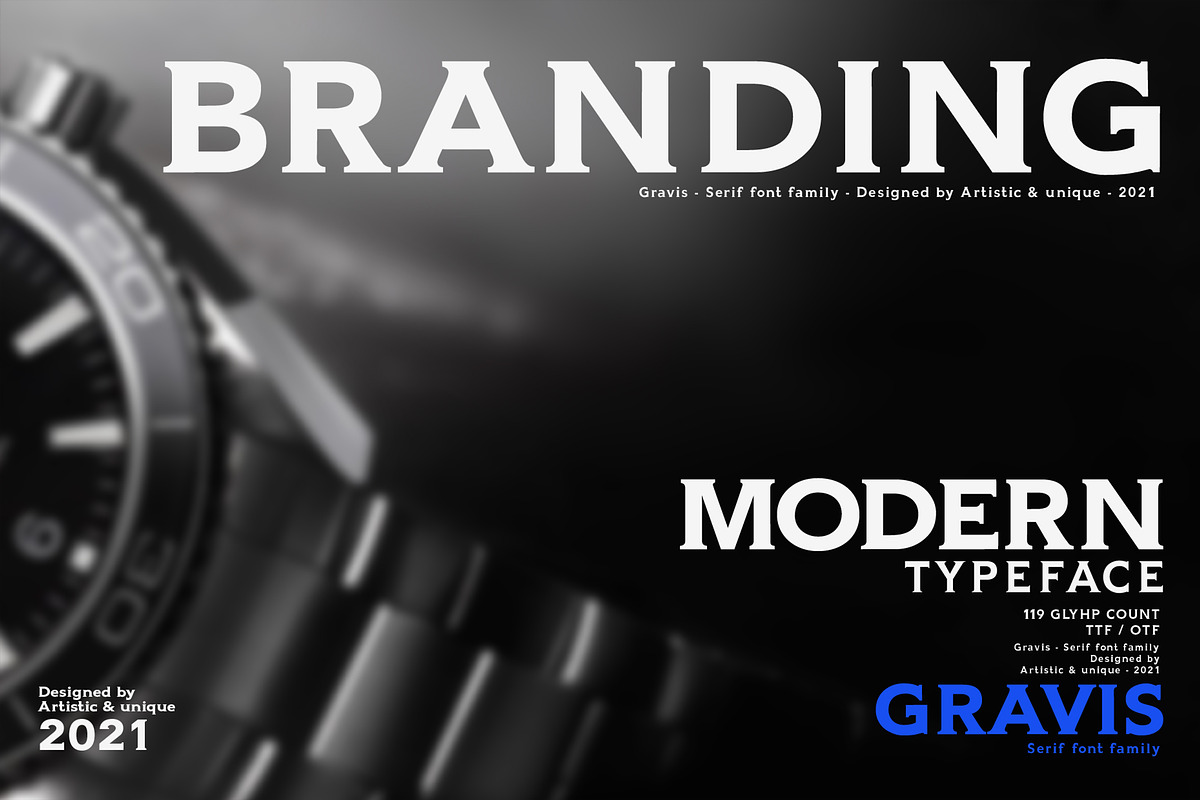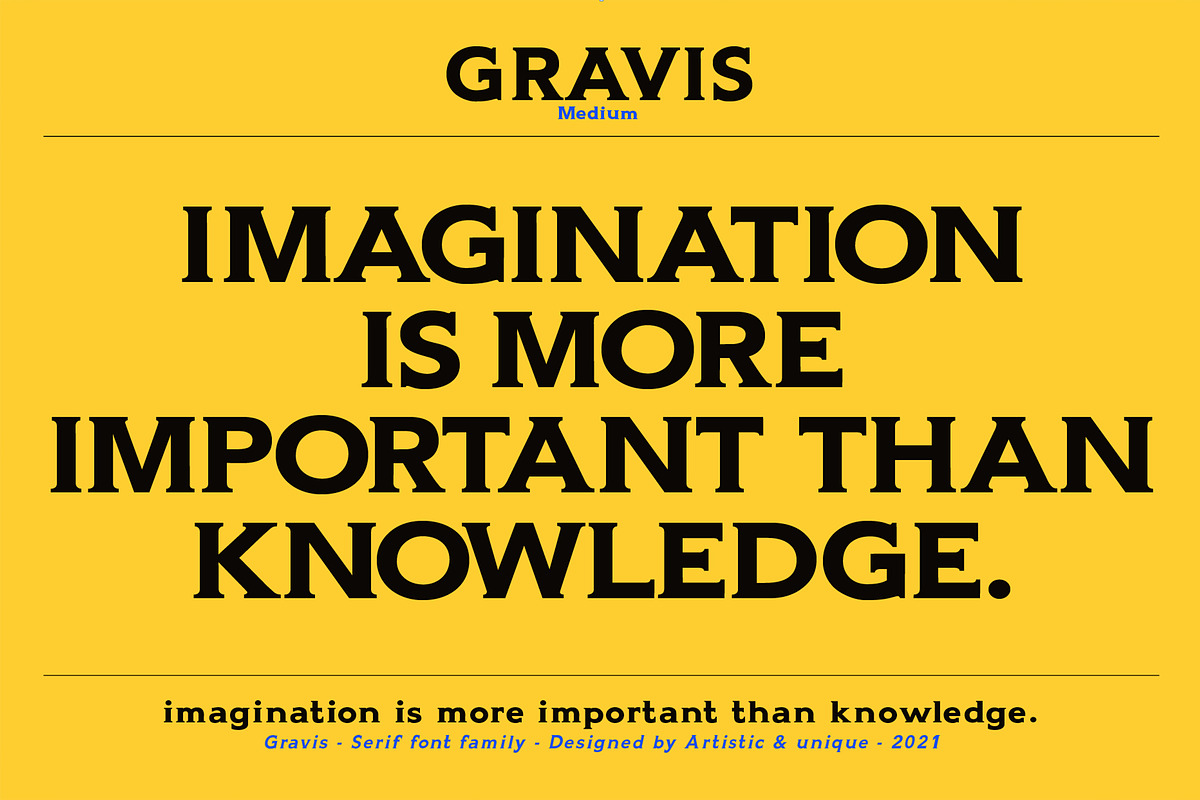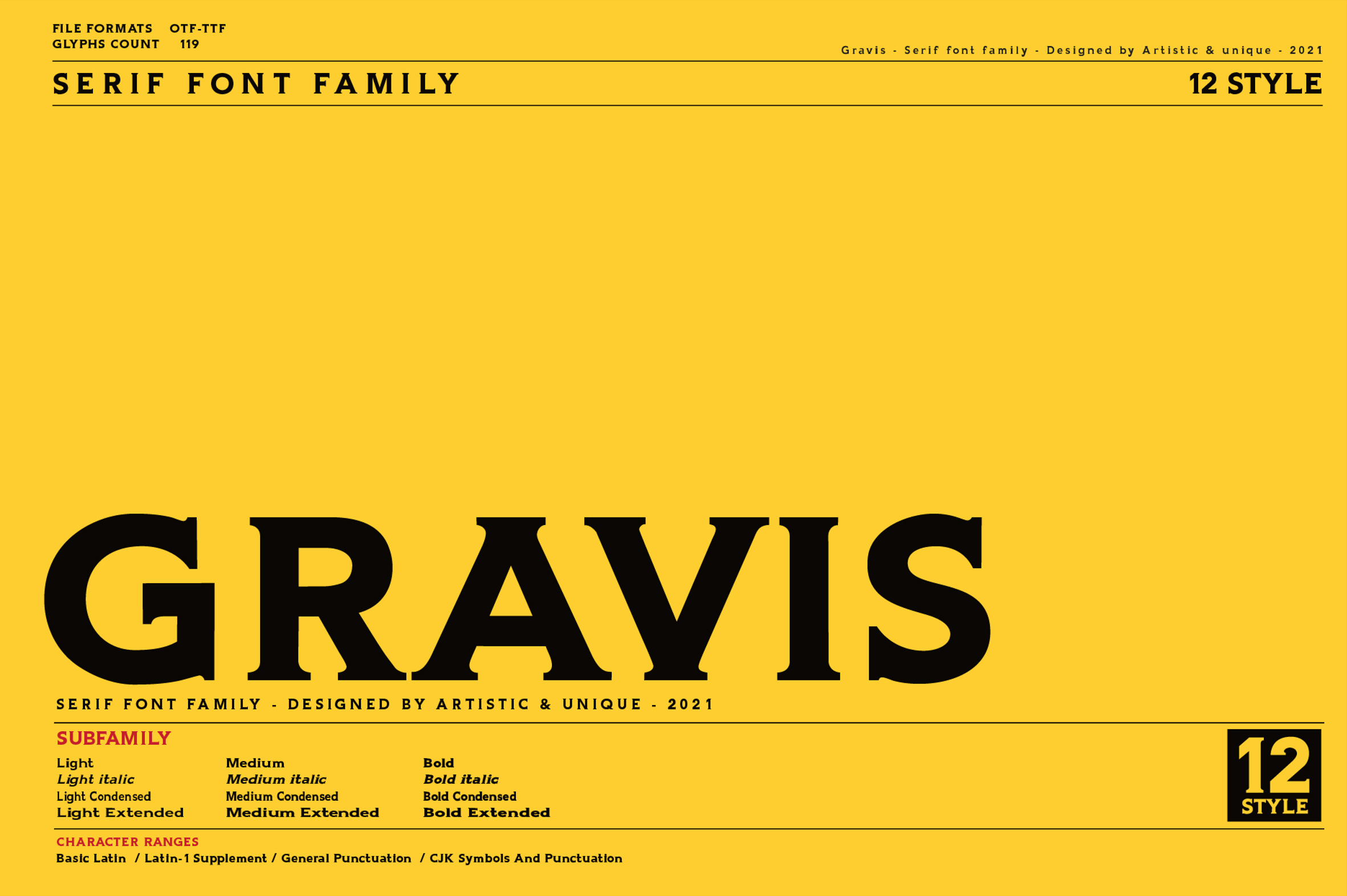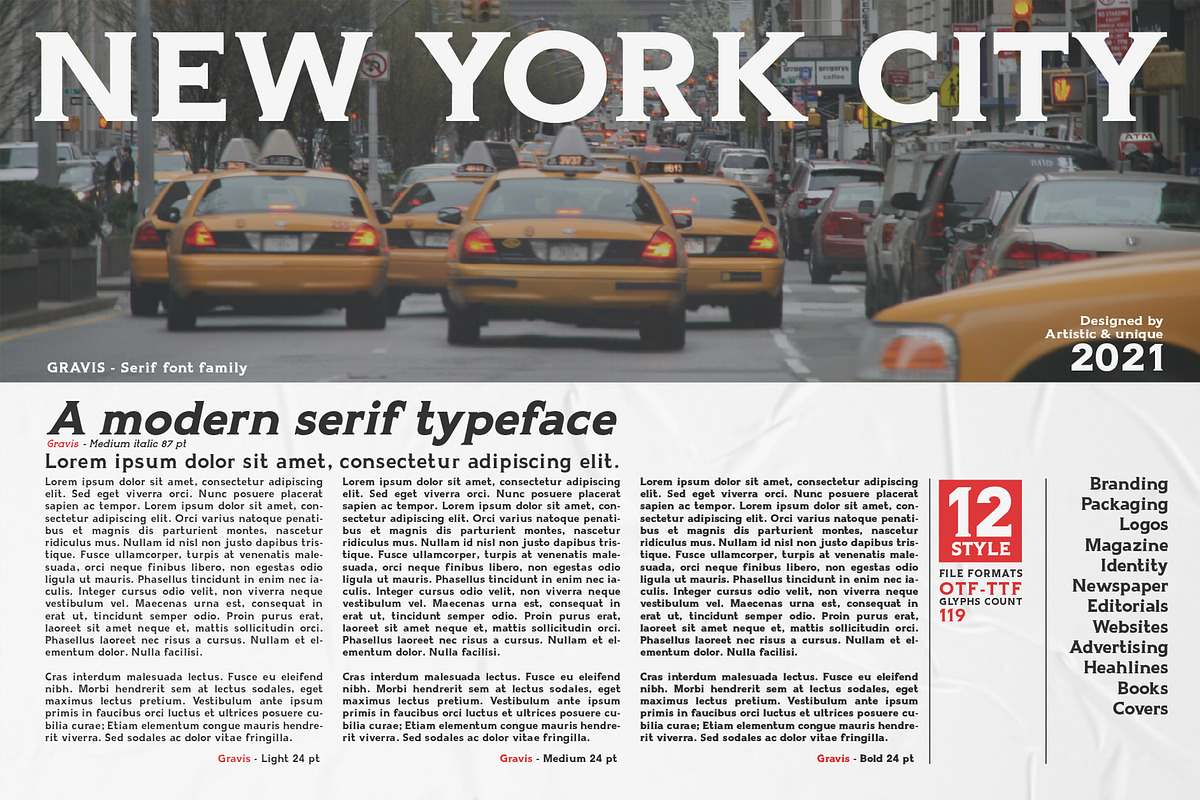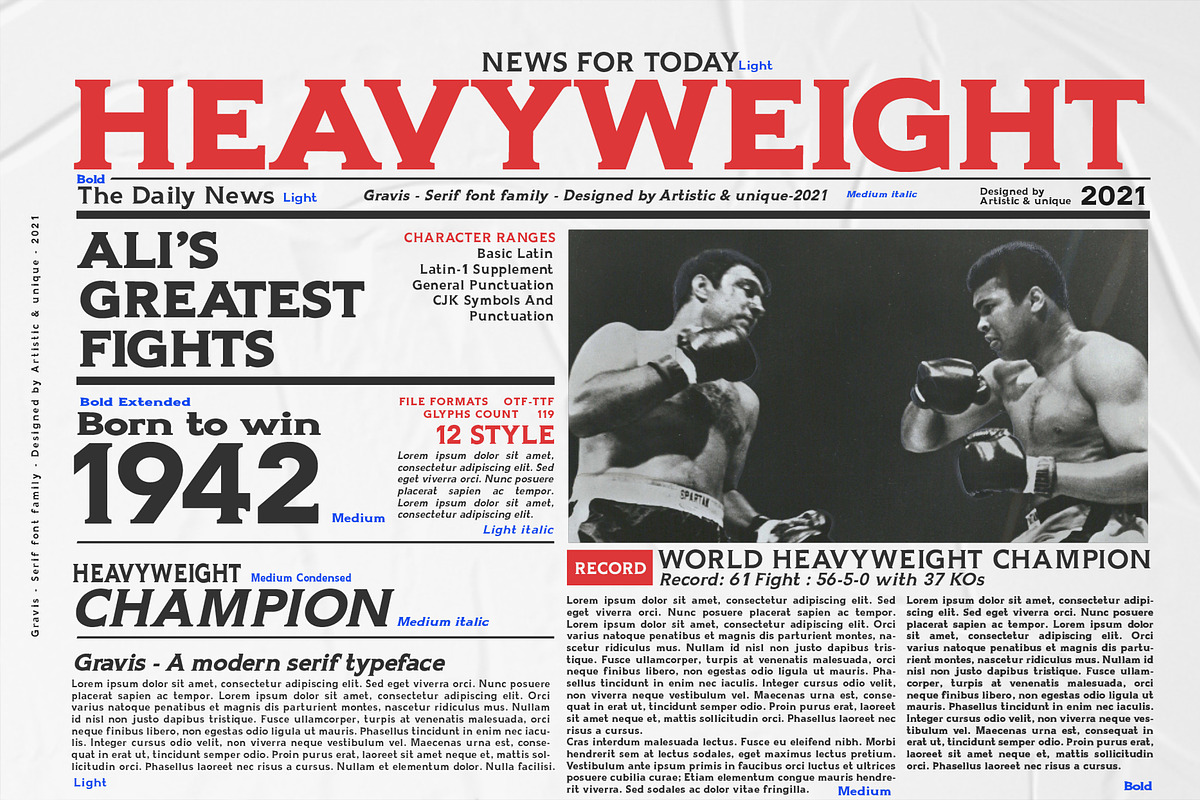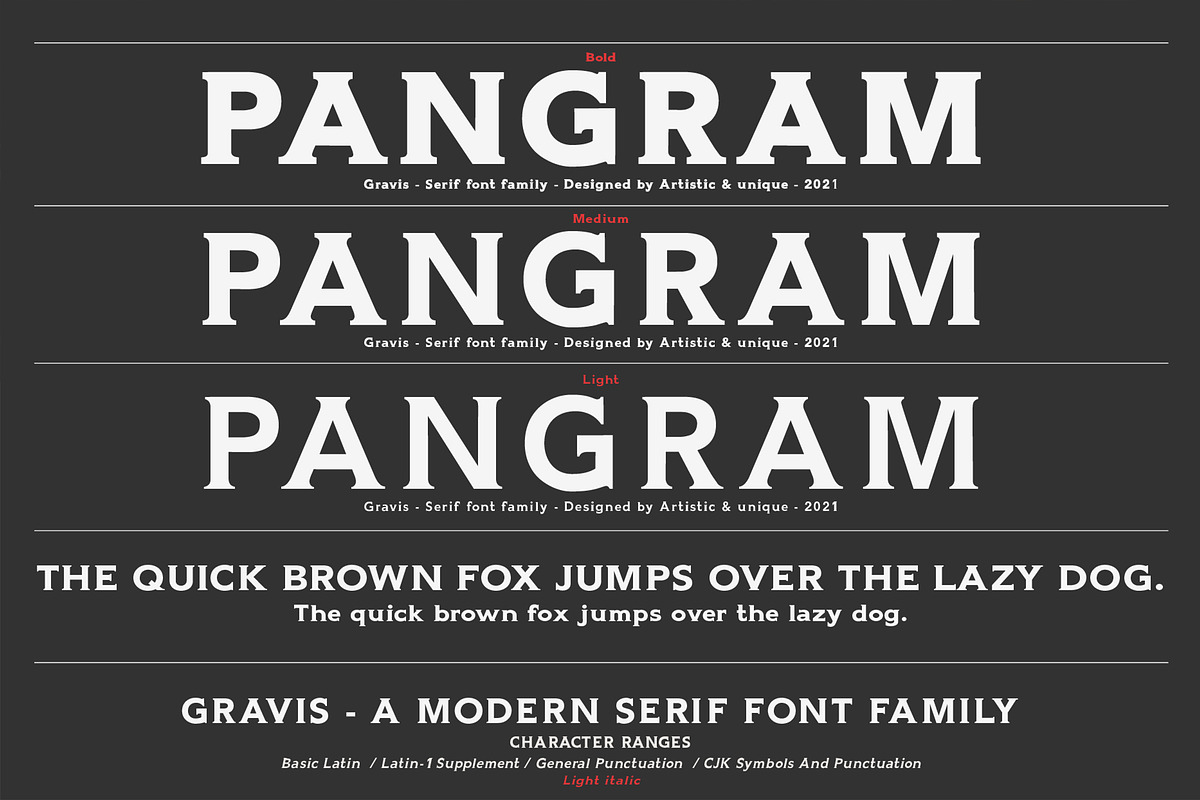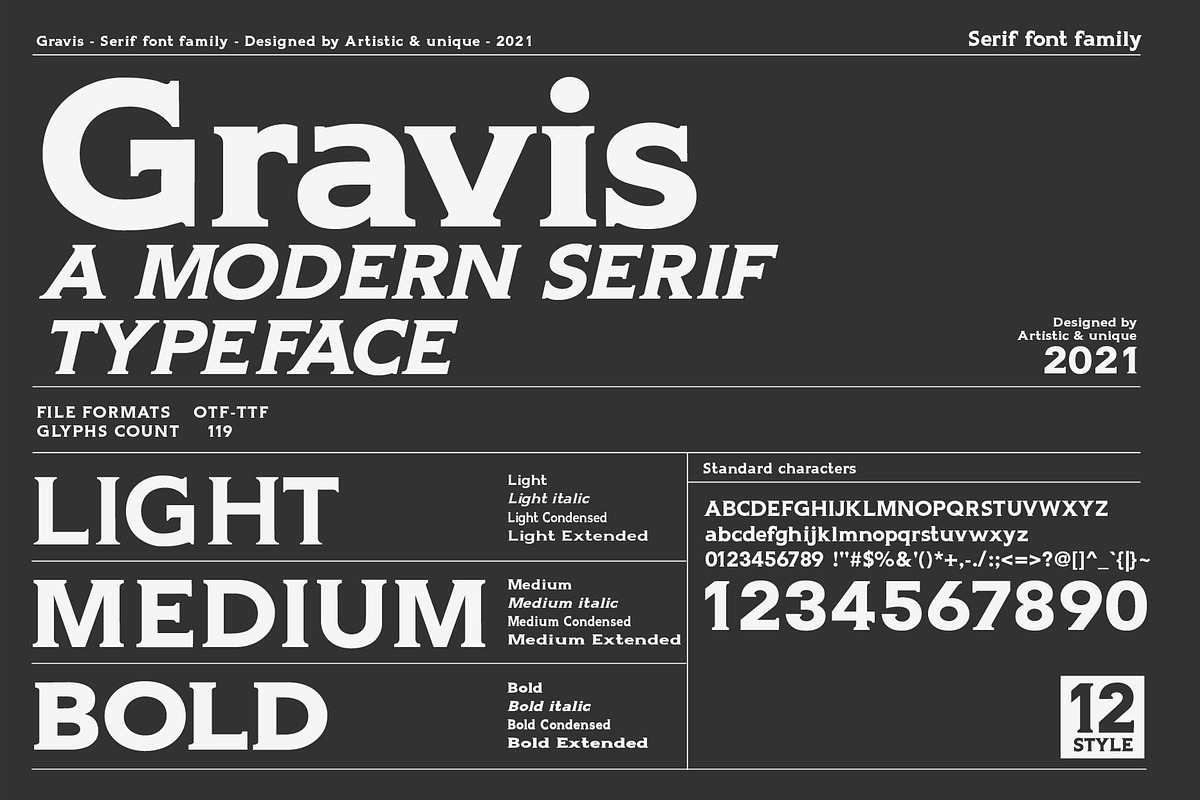
Gravis - Serif font family
Its characteristic structure is ideal for expressing a dominant and powerful look.
This feature is suitable for highlighted titles, subtitles, and promotional captions. You can create creative and stylish designs with combinations of upper and lowercase letters in the title and text. This font helps you discover the best mood for your projects, from body text to big headlines, classic to modern and bold looks.
Well suited for books and magazines, magazine covers, editorials, headlines, websites, logos, invitations, branding, advertisements and more.
- Basic Latin,
- Latin-1 Supplement,
- General Punctuation,
- CJK Symbols And Punctuation,
Light
Light italic
Light Condensed
Light Extended
Medium
Medium italic
Medium Condensed
Medium Extended
Bold
Bold italic
Bold Condensed
Bold Extended
Uppercase typeface
Lowercase typeface
Symbols
With this font you can create your unique designs.